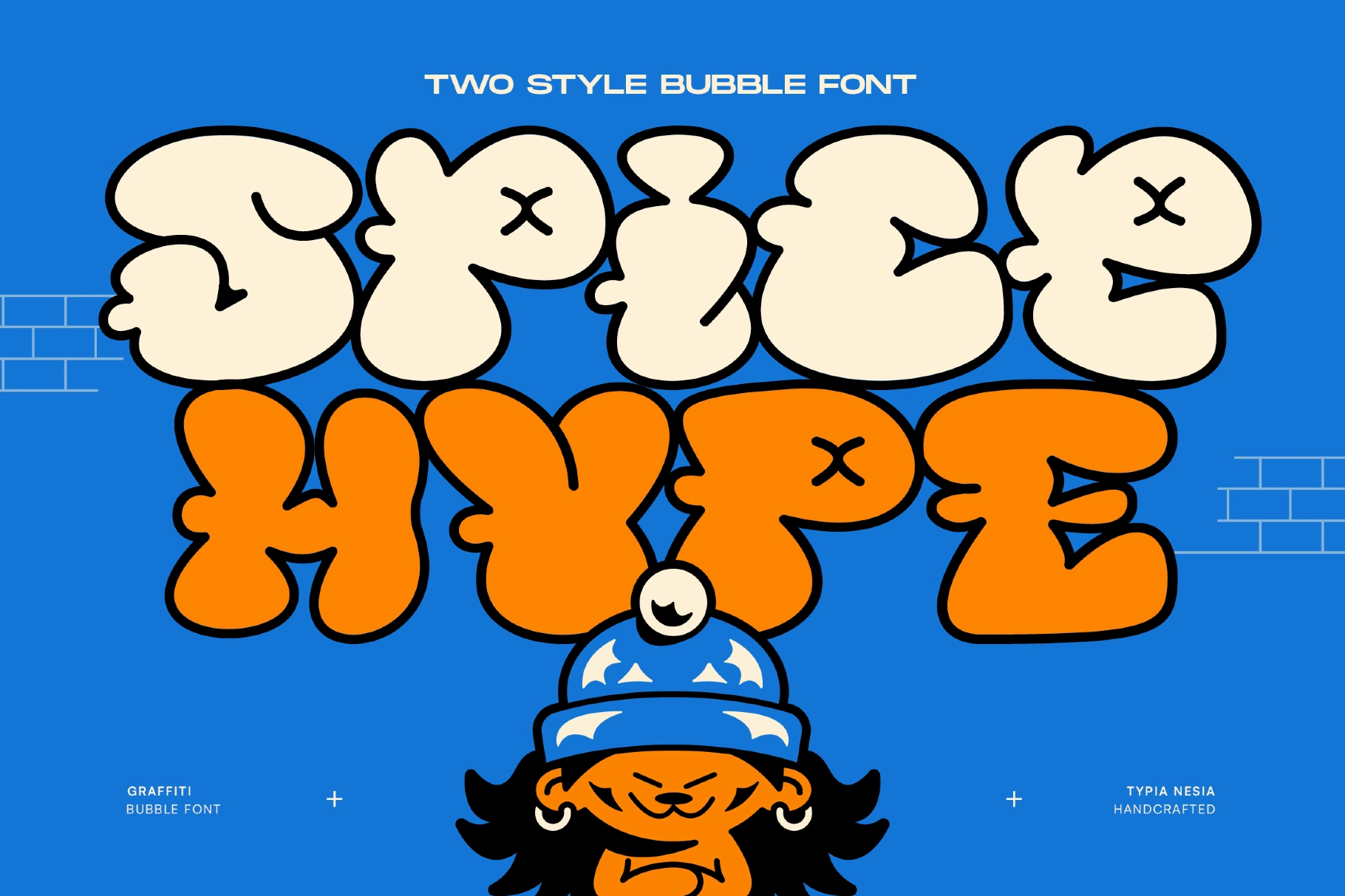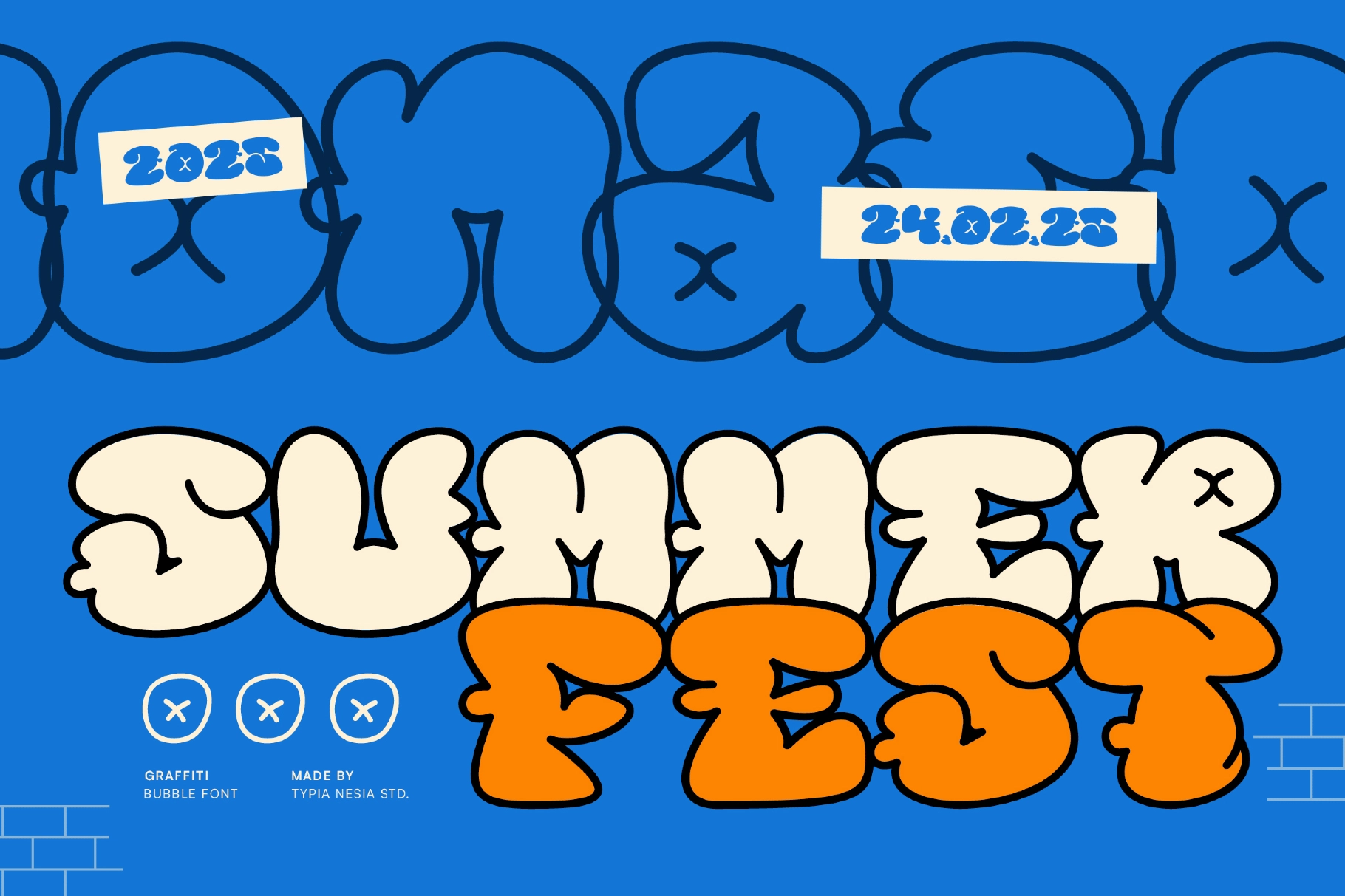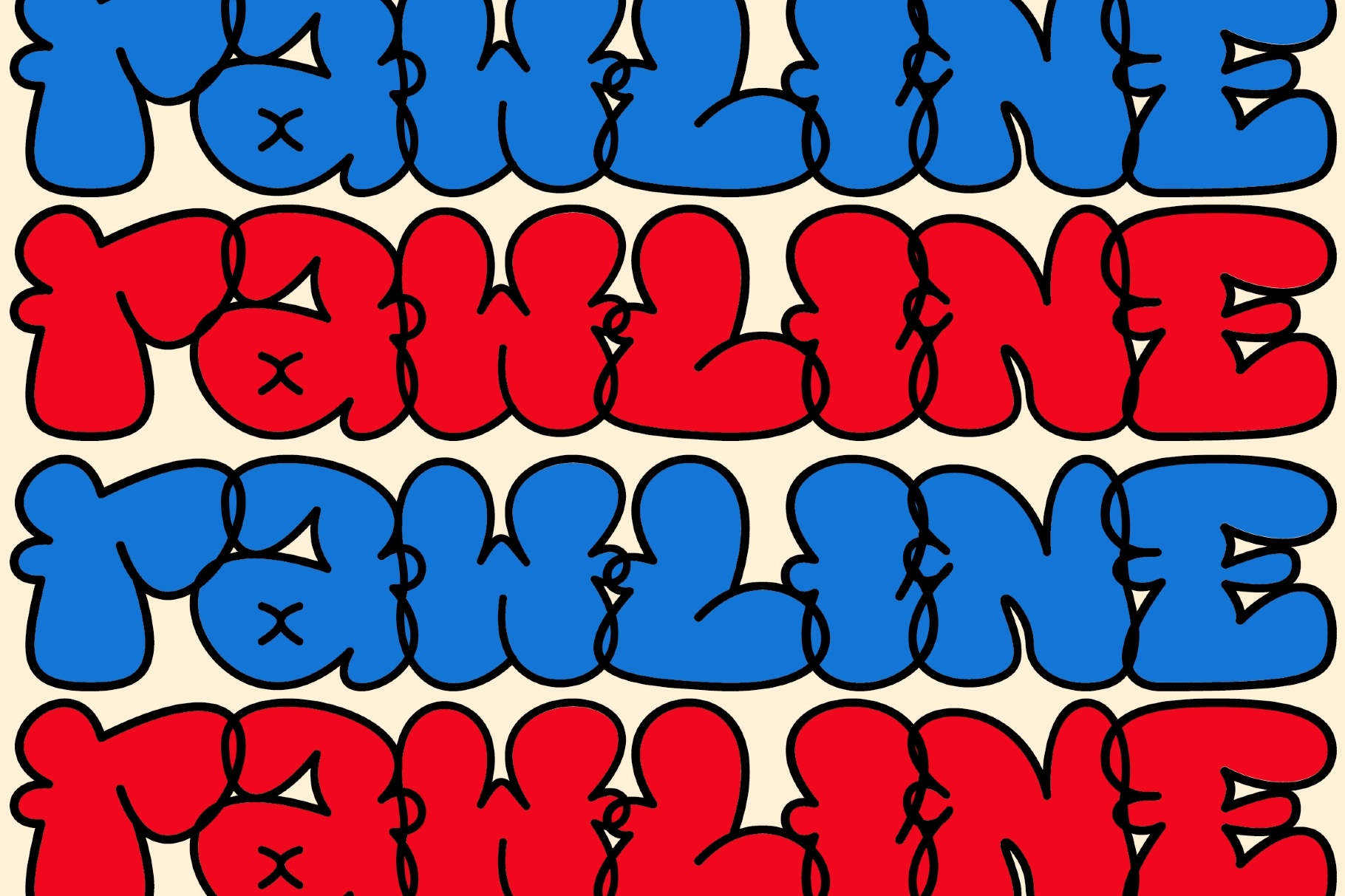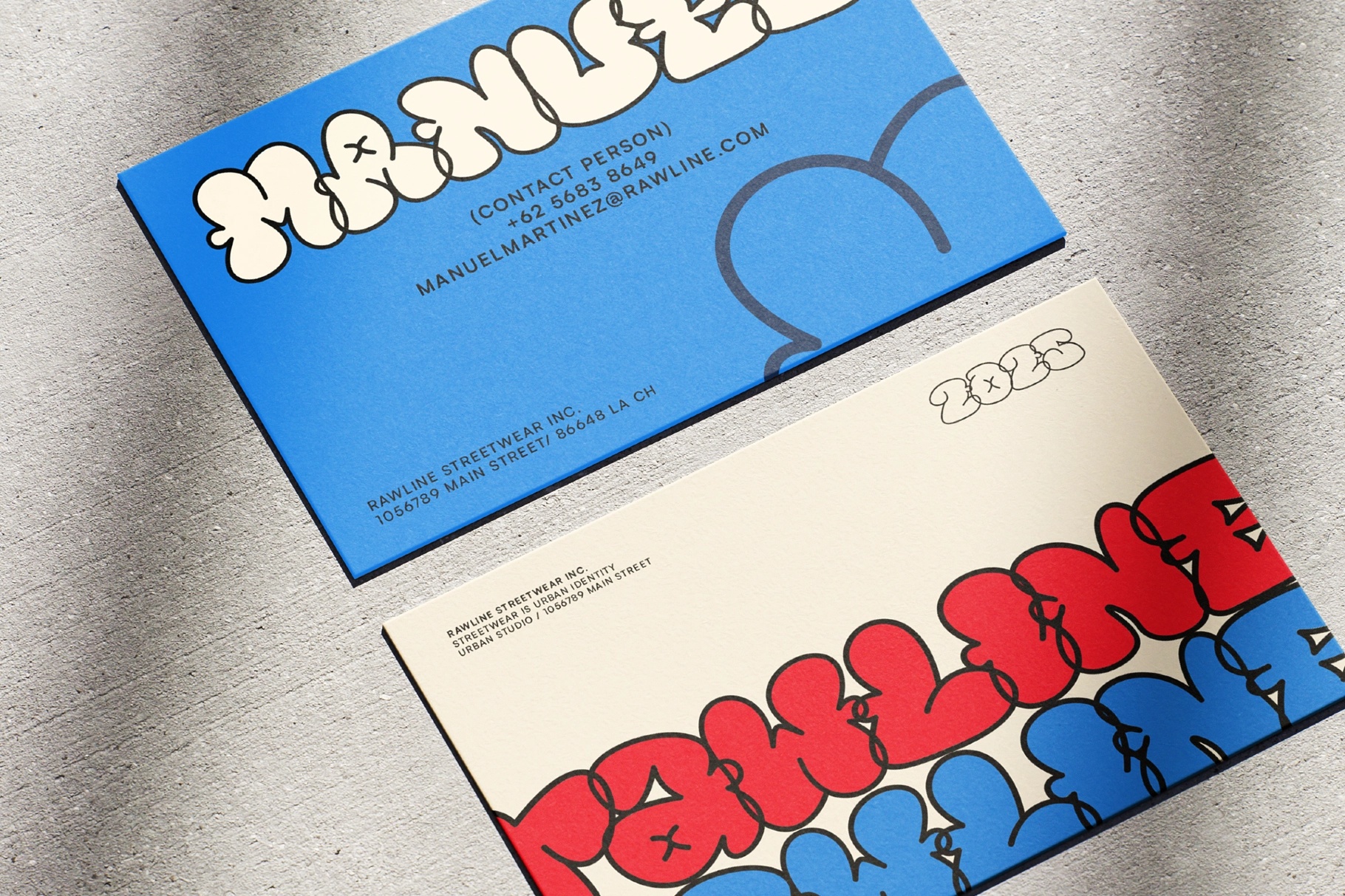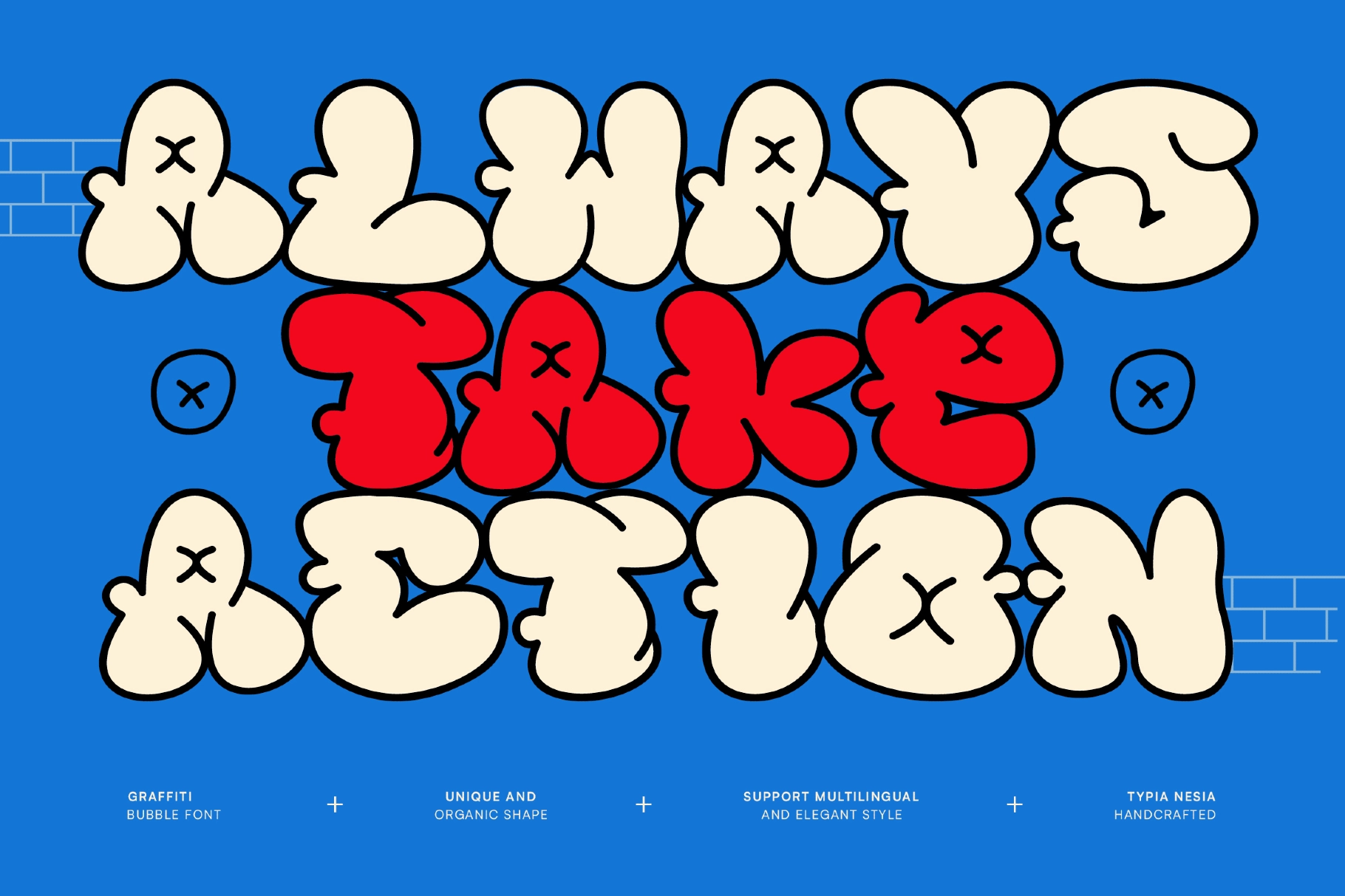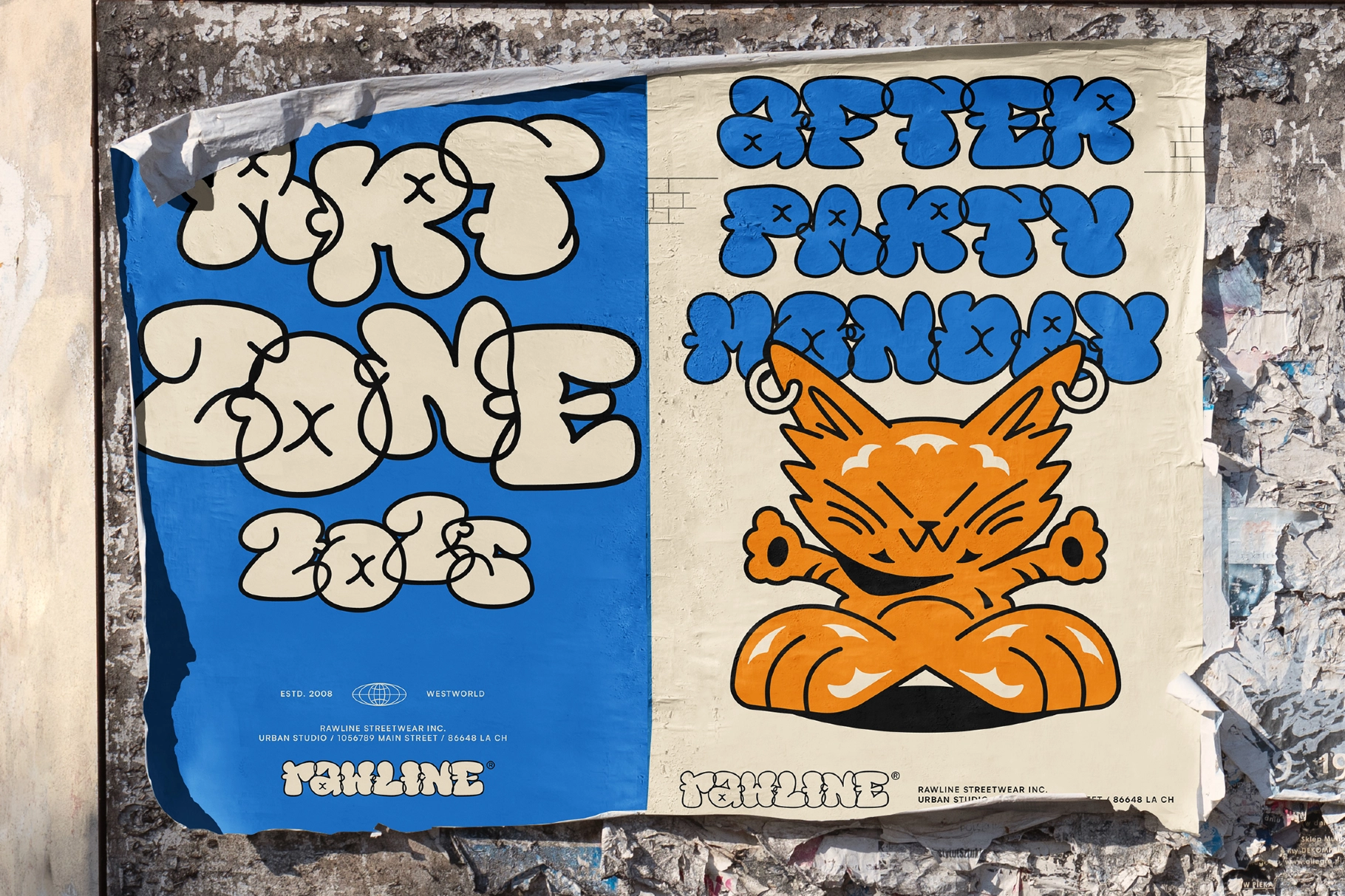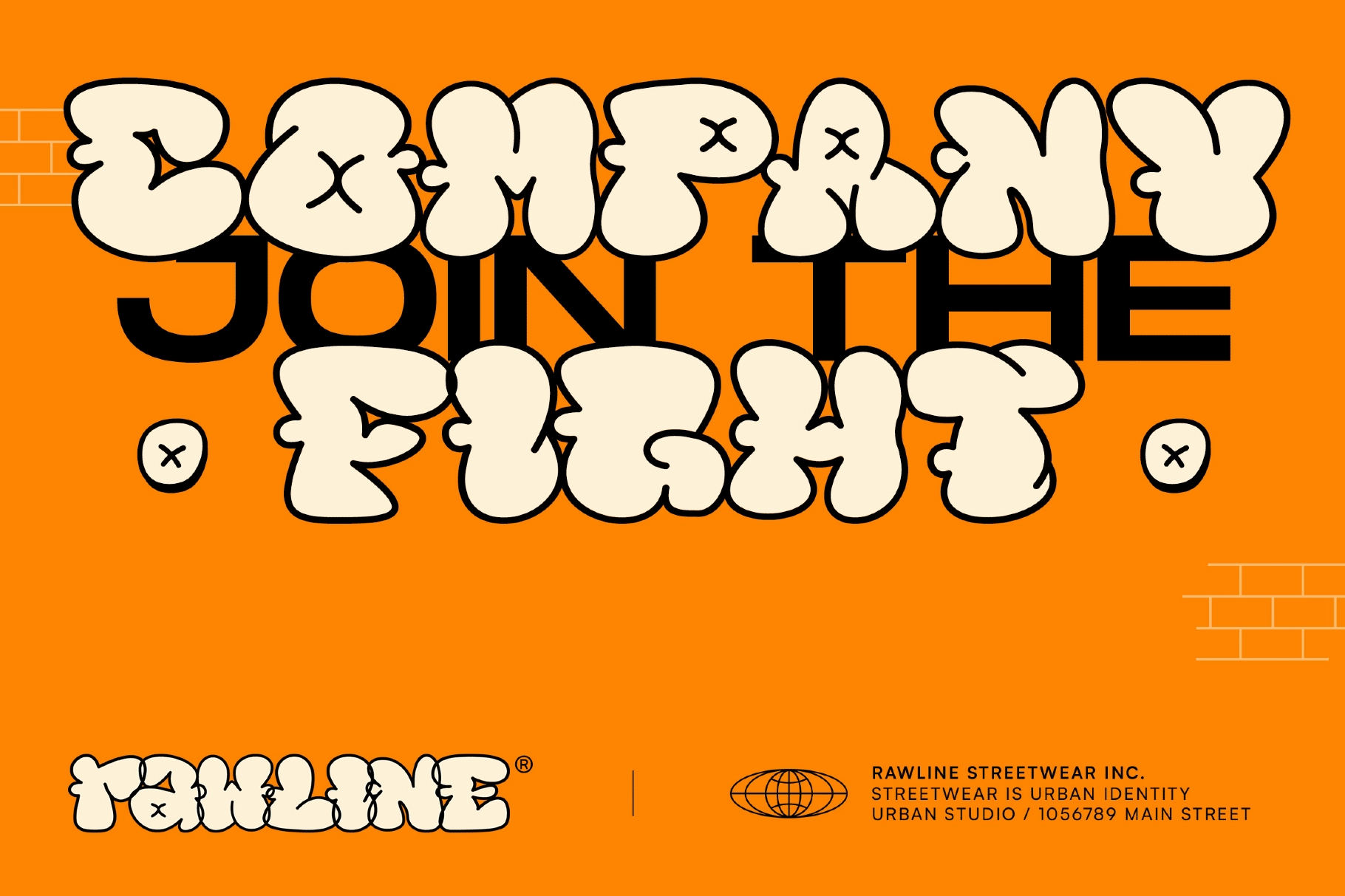
Spice Hype - Bubble Graffiti Font
Spice Hype - Bubble Graffiti Font is a bold and playful typeface inspired by street art and cartoon-style lettering. Its inflated bubble shapes, chunky outlines, and thick strokes create a strong visual impact that stands out in high-contrast designs. The rounded forms give it a fun and energetic personality while maintaining a clean and readable structure.
Built for eye-catching compositions, this font delivers both style and clarity across posters, branding, and digital graphics. The balloon-like letterforms handle color fills and outlines effortlessly, making it perfect for vibrant layouts that need a lively urban feel with a friendly, modern edge.